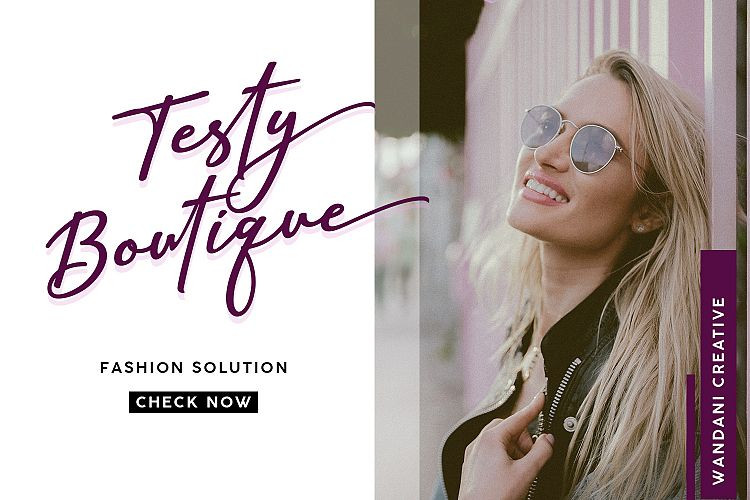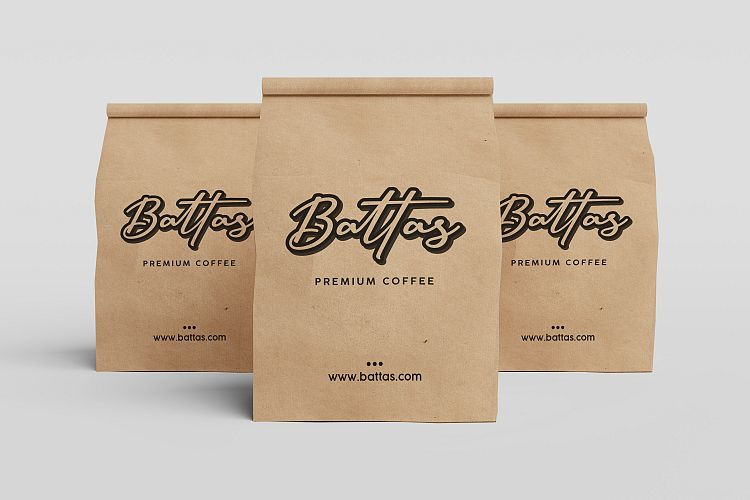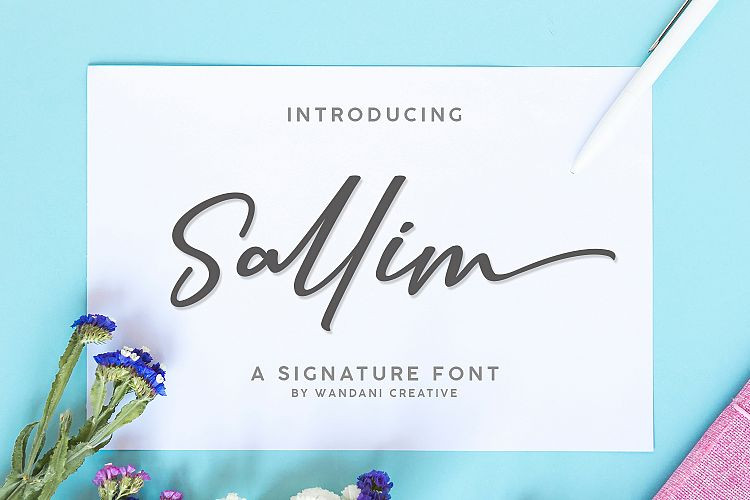
Sallim Signature Font
This handwritten script has been attentively written, with gentle curves to produce a font thats completely distinctive and original. Introducing Sallim Font. Sallim Signature Font , a font that is very fresh and unique style handmade. Sallim font is perfectly suited to logo, stationery, poster, apparel, branding, advertisements, product packaging, product designs, labels, wedding invitation, card, tagline, layout design, and much more !